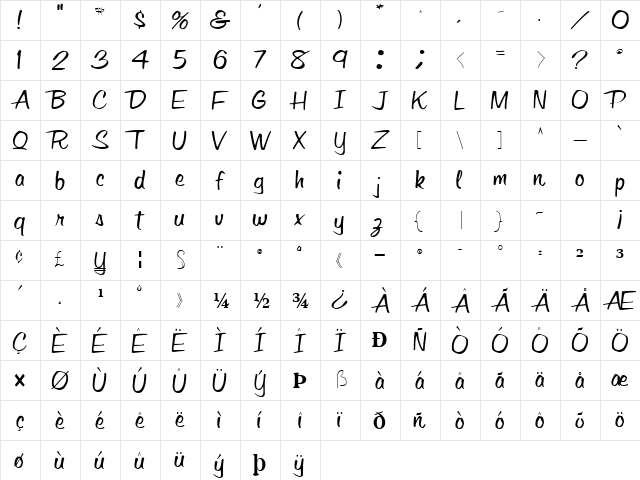
KeyLogo34 Regular Font Preview
KeyLogo34 Regular
KeyLogo34 Regular Font Details
Design Context for KeyLogo34 Typeface
KeyLogo34 is a composed and adaptable typeface that performs quietly and consistently across a wide range of design contexts.